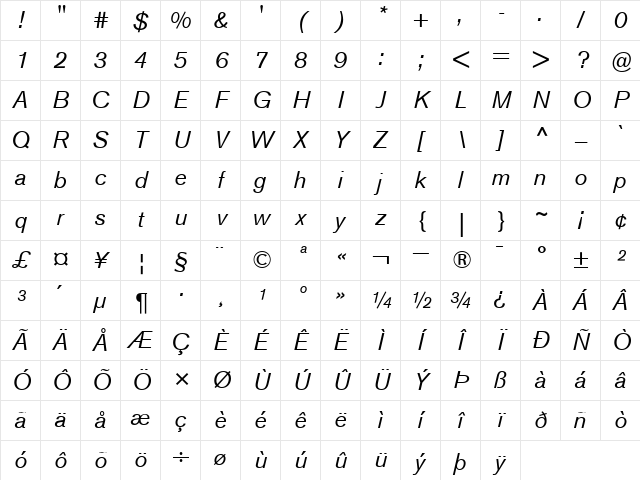
BertholdAkzidenzGroteskBE RomanItalic
Style: RomanItalic
Design Context for BertholdAkzidenzGroteskBE
BertholdAkzidenzGroteskBE takes a clean, functional approach - its unadorned letterforms prioritise legibility and work reliably across screen and print environments. The slanted form adds forward momentum and visual energy.
Font Pairing: Works well alongside a characterful serif or display font that can carry the expressive load while BertholdAkzidenzGroteskBE handles the functional copy.